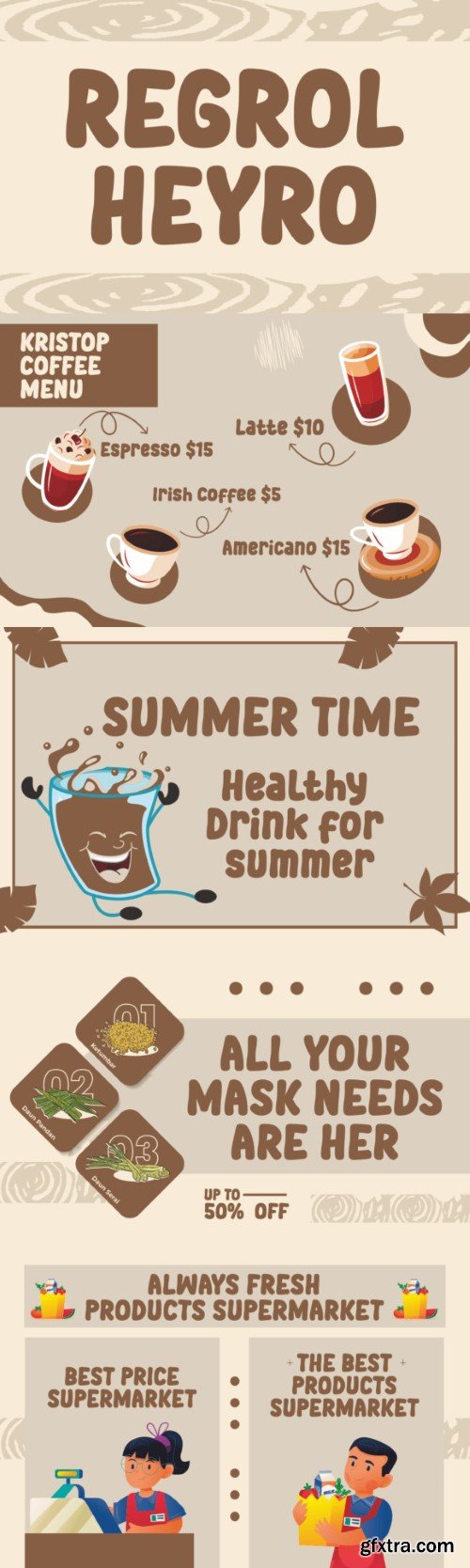
雷罗 Hey罗 字体
Regrol Heyro is a fun and quirky display font that exudes personality and charm. Its playful design and unique letterforms make it stand out in any project. With a touch of retro flair, Regrol Heyro adds a sense of nostalgia and whimsy to your designs. Ideal for posters, logos, and creative branding, this font is sure to captivate and delight.